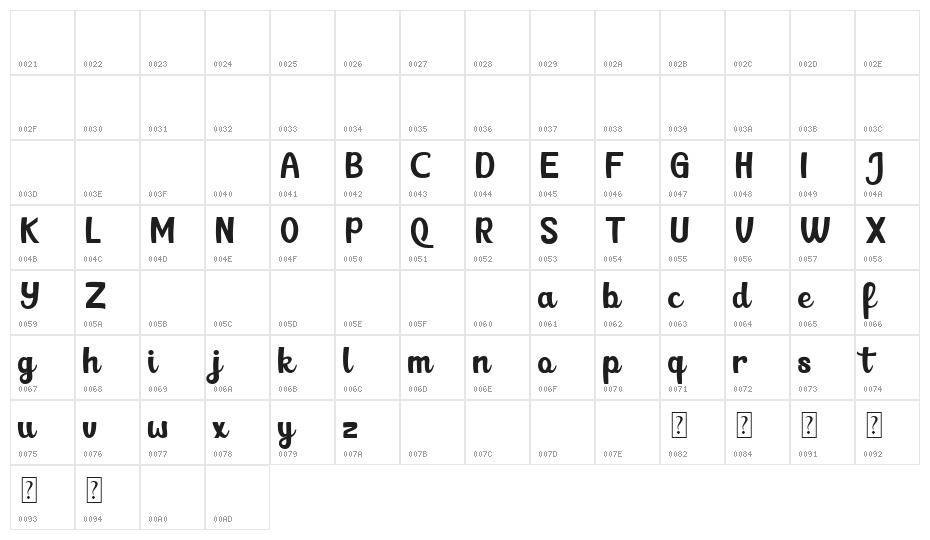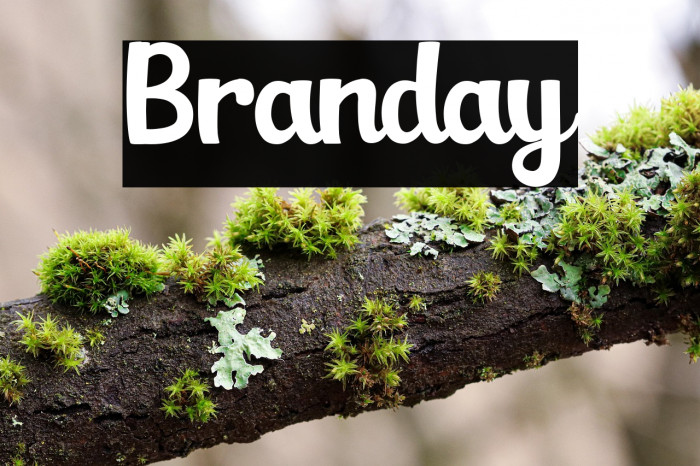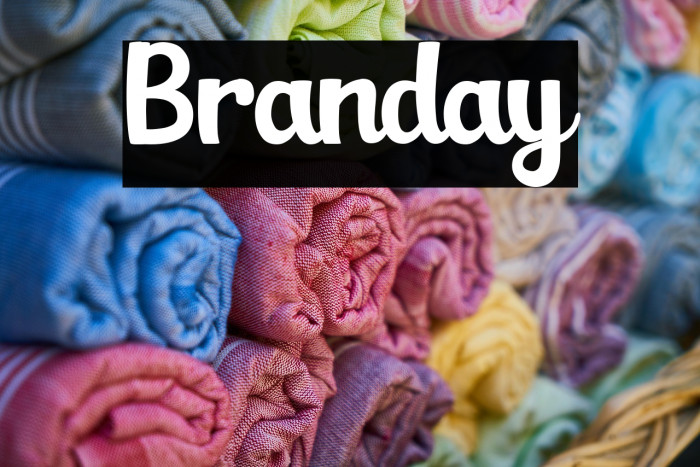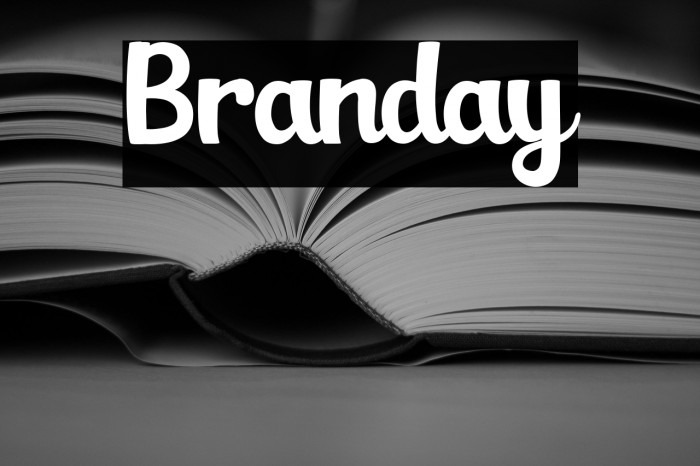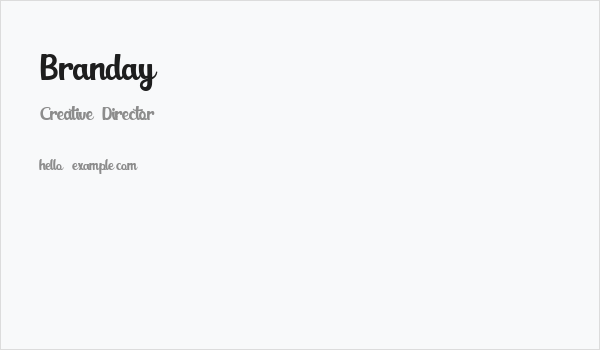
Branday Font
Branday Description
This font features a playful and bold style with a hand-drawn appearance, characterized by its thick strokes and rounded edges. The uppercase letters are slightly taller than the lowercase, adding a sense of whimsy and charm. The lowercase letters have a unique flow, with some characters connecting in a script-like manner, enhancing its casual and friendly look. The numbers and special characters maintain the same bold and rounded style, ensuring consistency across all glyphs. This font is ideal for projects that require a fun and approachable aesthetic, such as children's books, playful branding, or creative posters.
Overall StylePlayful
Proposed ProjectsIdeal for children's books, playful branding, creative posters, and casual invitations.